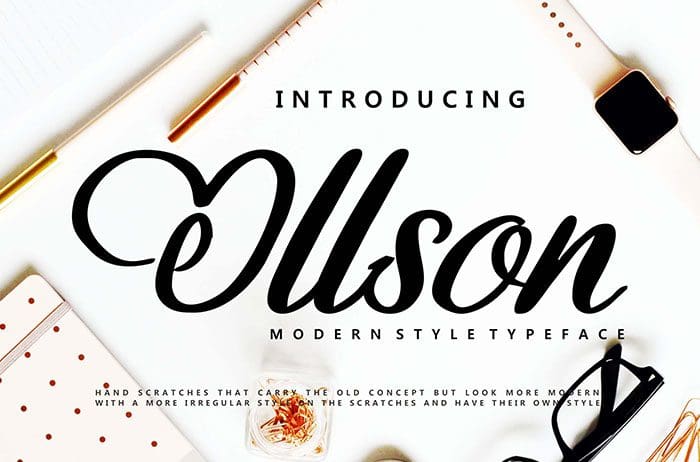
Free Ollson Script Font
Ollson Script Font
Free Ollson is a modern script font with a bold touch. Get inspired by its natural charm. It’s a perfect fit for the salon, cosmetics, and much more. Thanks to Vunira Studio for sharing this font! Take a look at this portfolio for more of his stunning fonts.